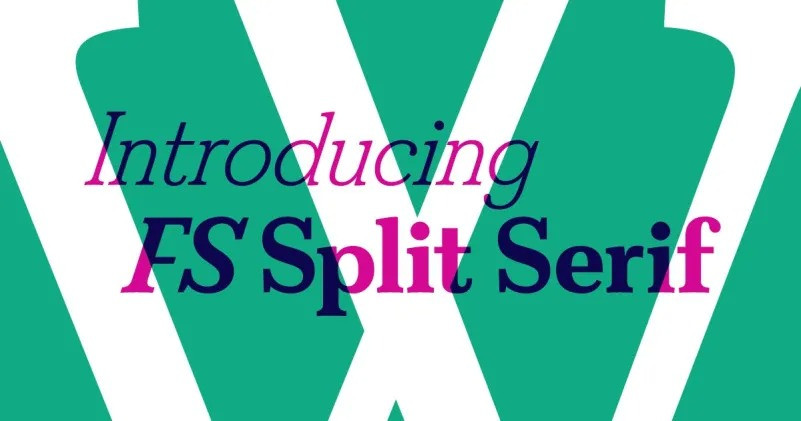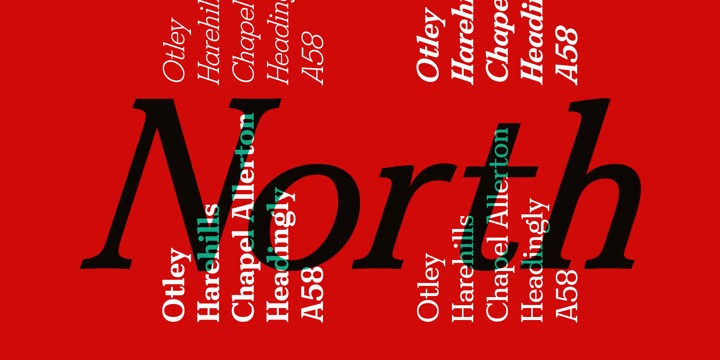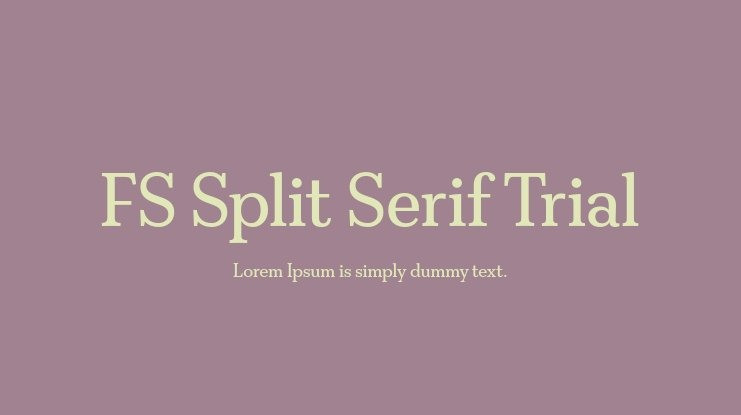
FS Split Serif Font
FS Split Font Family is a contrasting typeface. An in-vogue but unpolished, distinctive and eclectic design. The fresh, modern sans and serif type families can bring so much variety to everything from magazines and packaging, to websites and branding. The conflicting yet harmonising nature of sans and serif give designers the tools they need to be both bold and subtle, eclectic and ordinary, contemporary and classic.